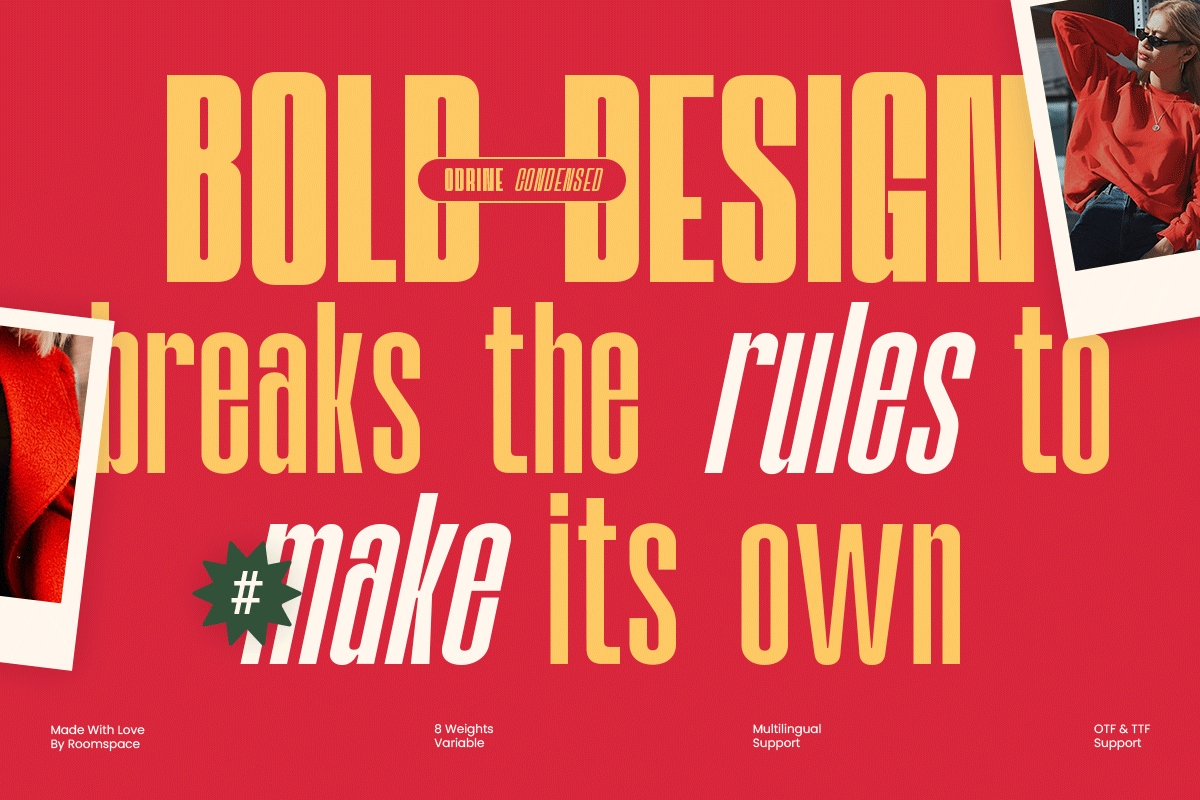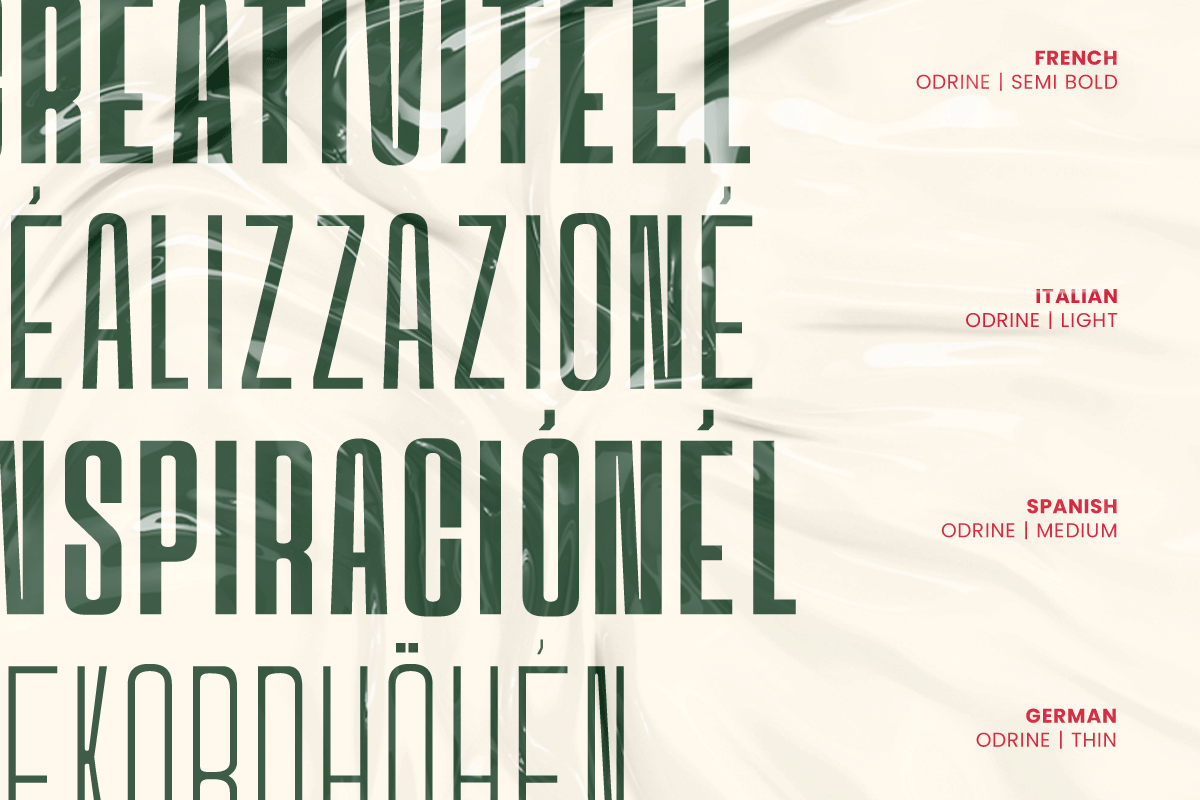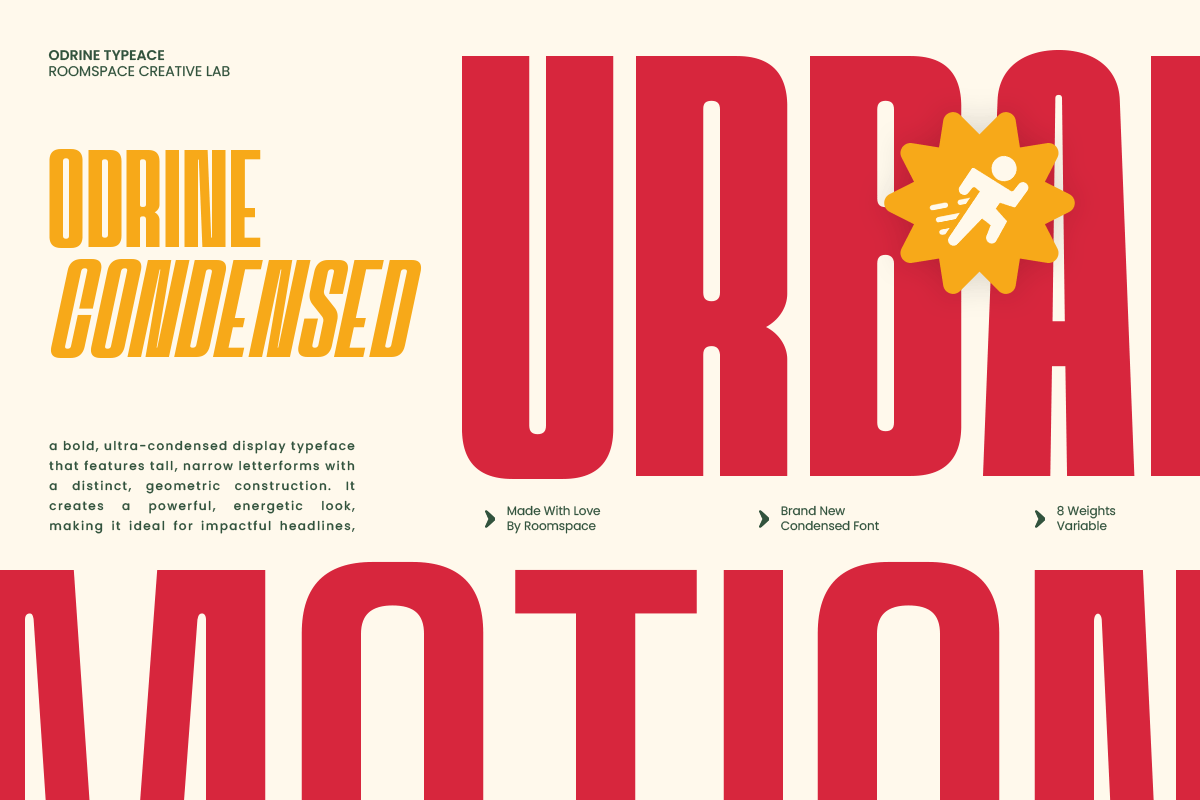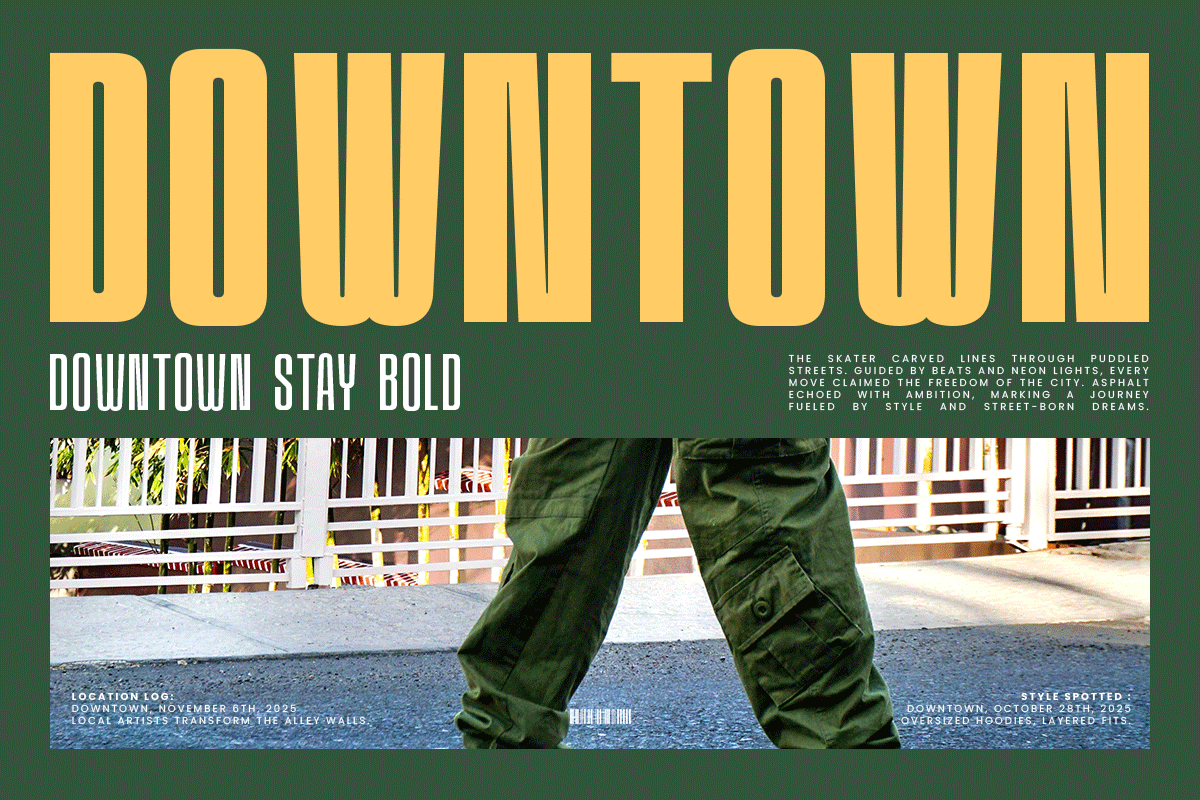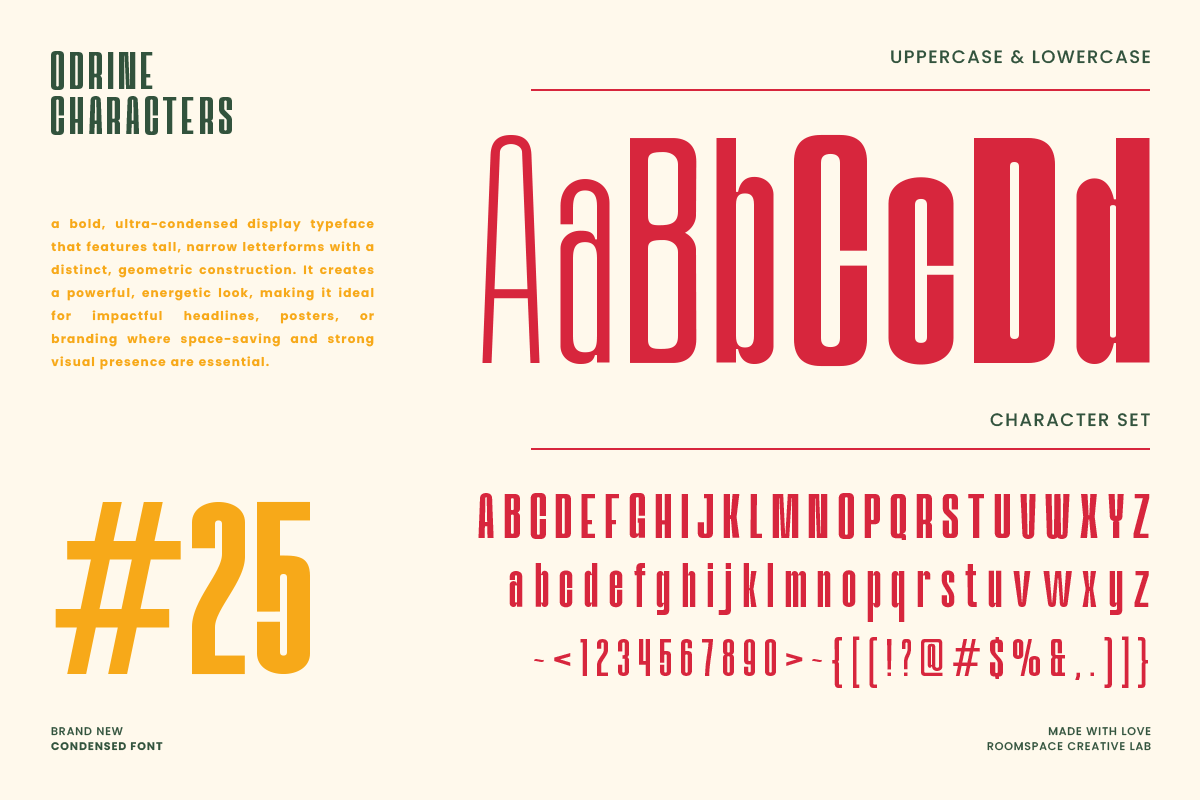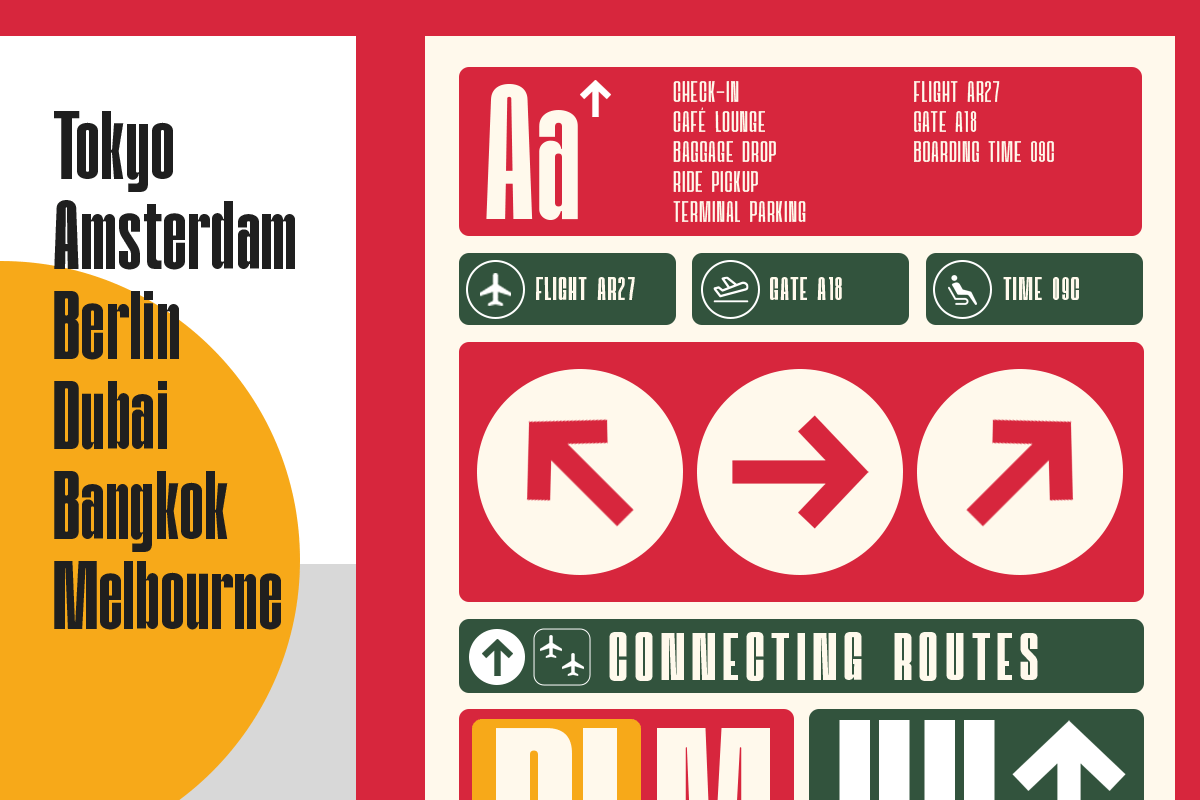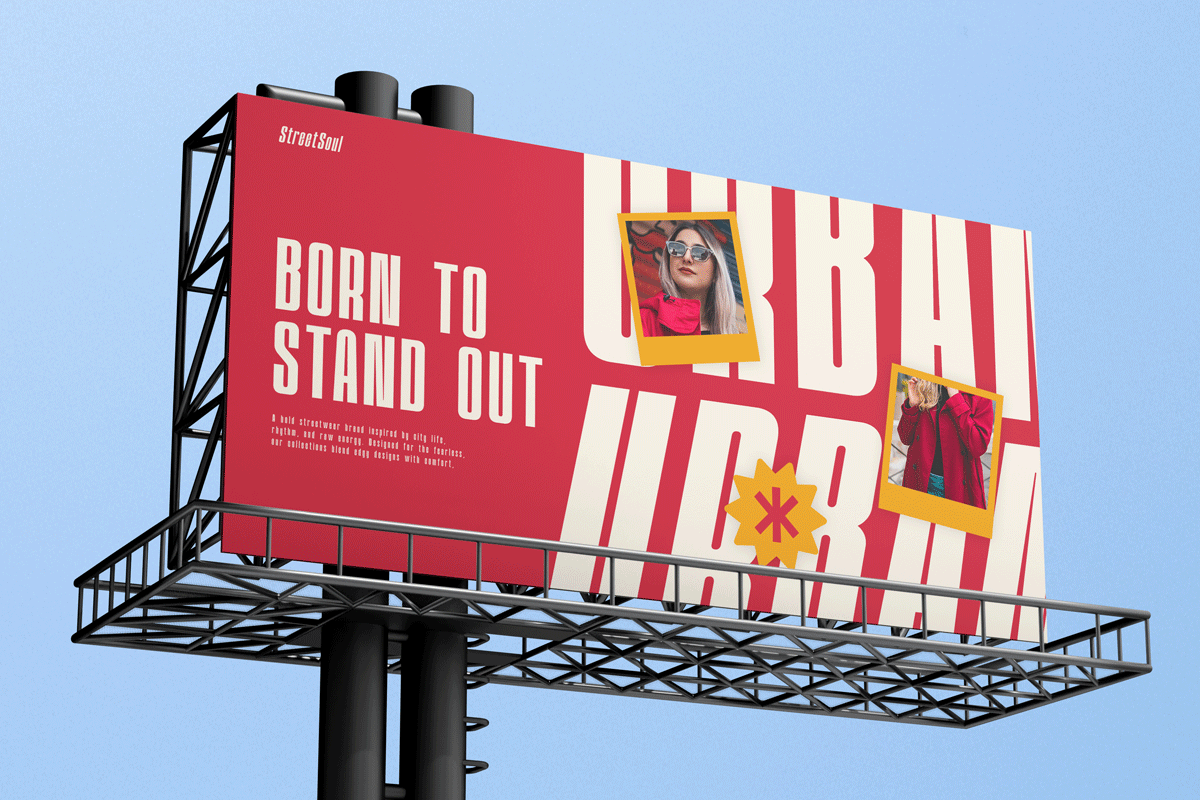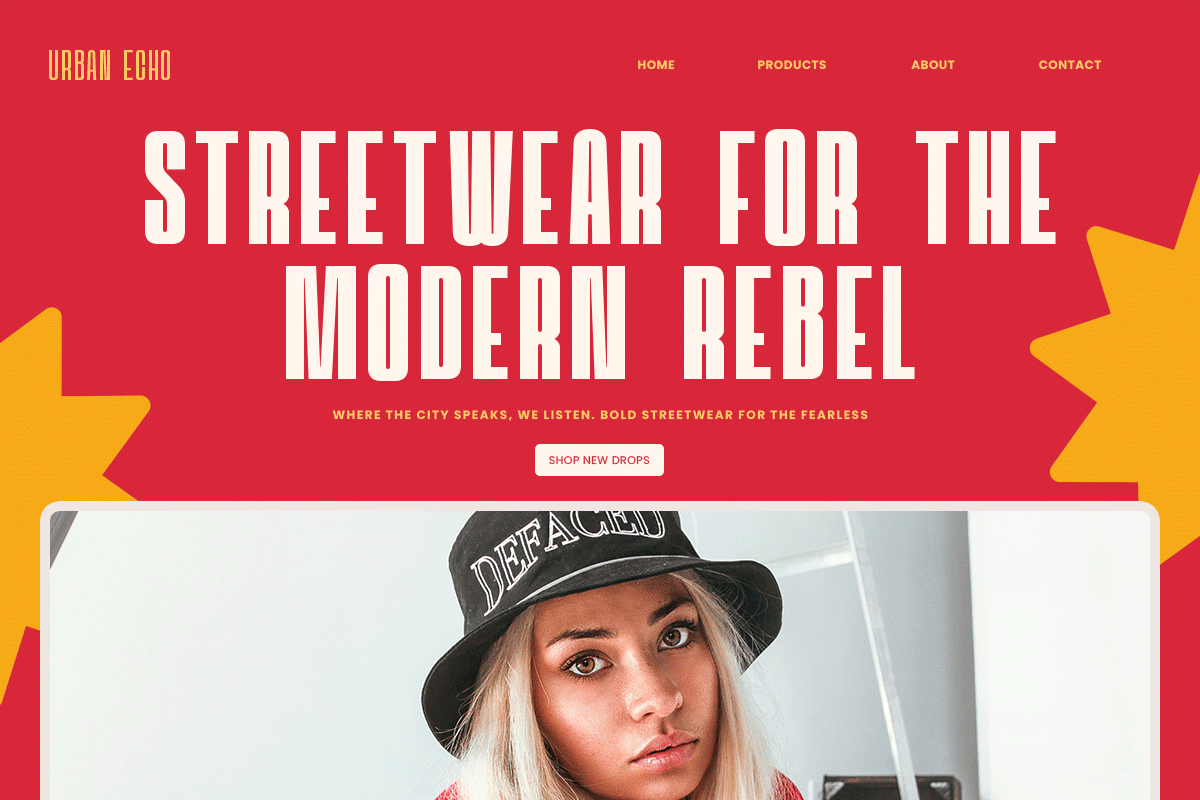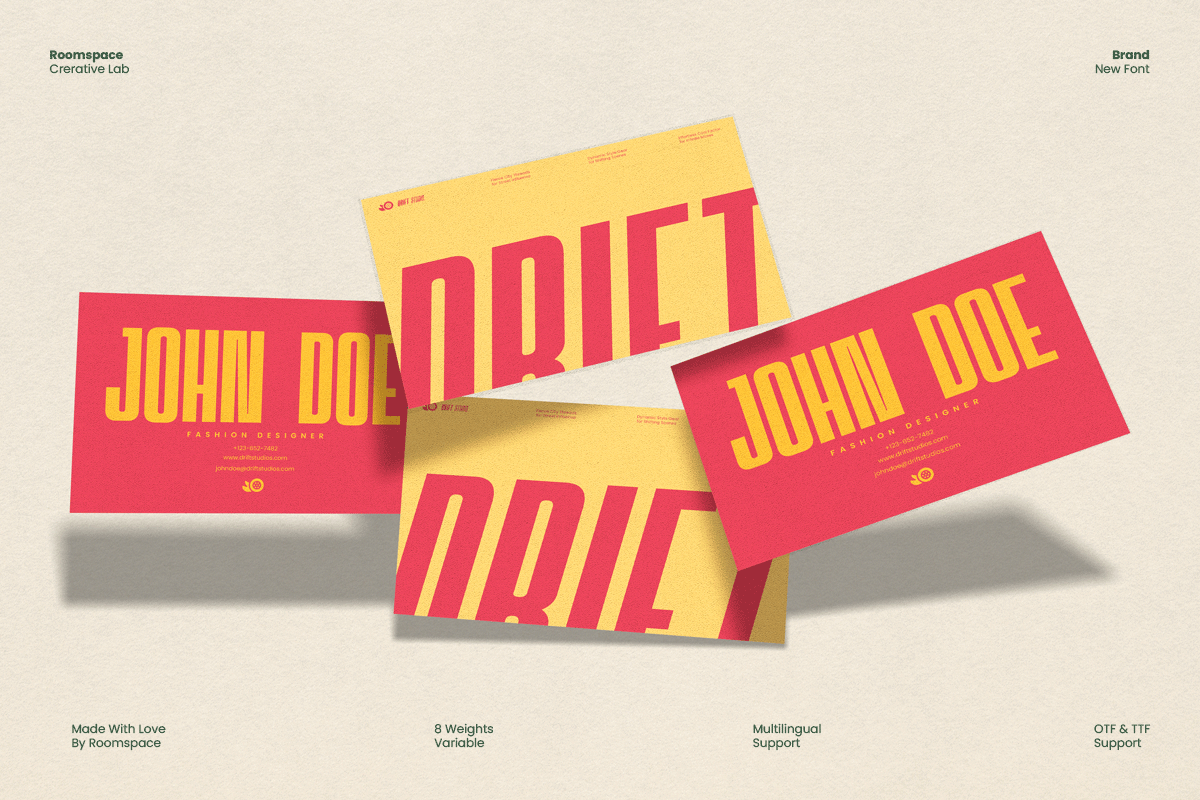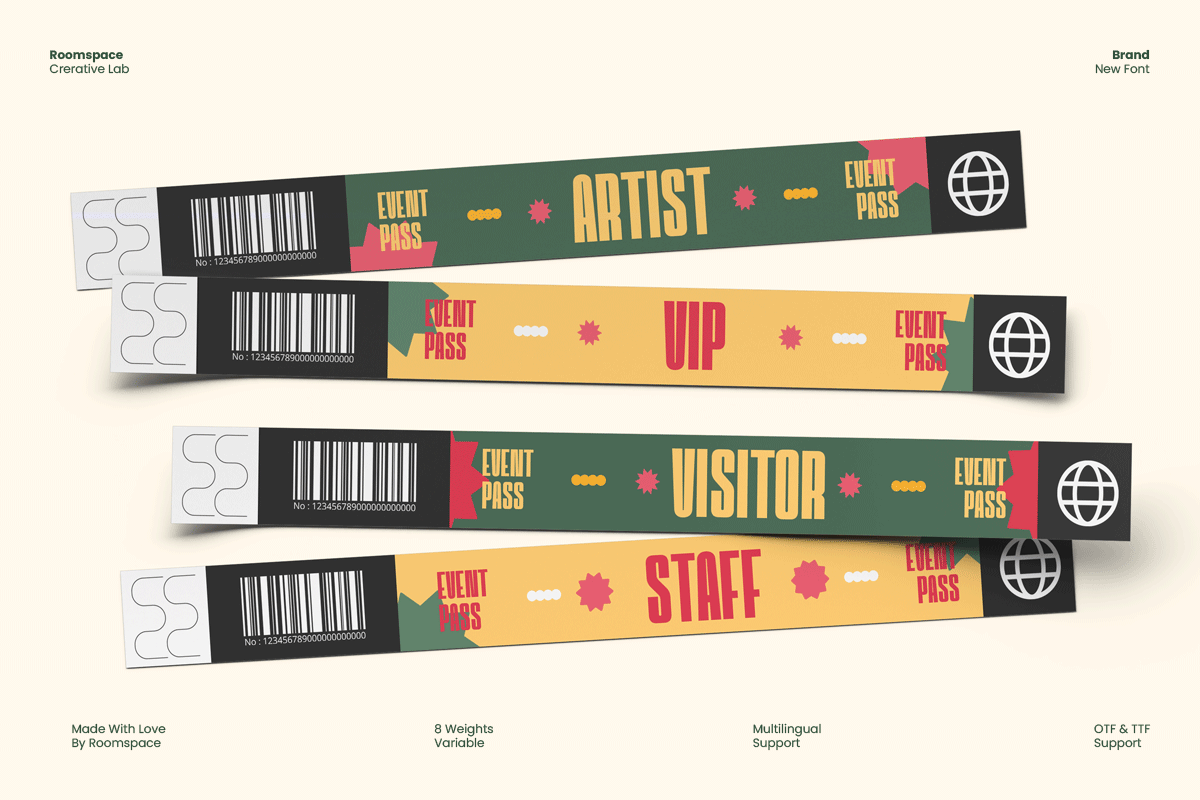
Odrine - A Retro Modern Condensed
Odrine is a condensed sans font that merges retro energy with modern clarity. It’s perfect for designers who love bold typography that stands out yet remains timeless. From logo marks to poster headlines, Odrine delivers a confident, stylish, and professional look that fits both print and digital projects.
- 16 weights + Variable version
- Tight condensed spacing
Perfect For : Logos, ads, editorials, magazines, social media templates, brand visuals, packaging, and display titles.